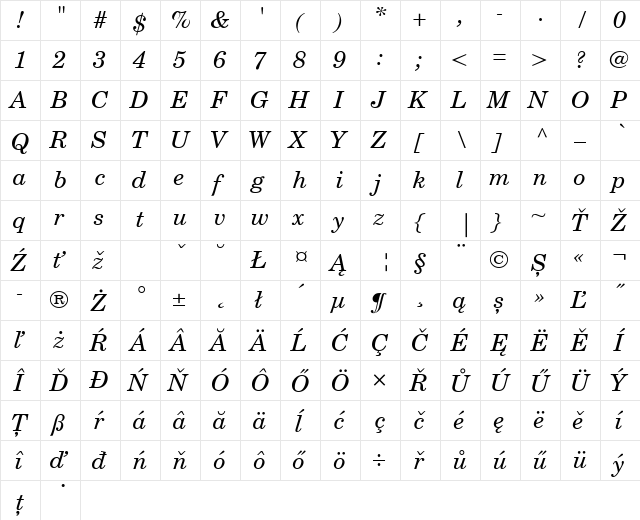
New Century Schlbk CE Italic
Design Context for New Century Schlbk CE Typeface
New Century Schlbk CE is a composed and adaptable typeface that performs quietly and consistently across a wide range of design contexts. Its italic angle brings a sense of urgency and motion to the letterforms.
Pro Tip: Use New Century Schlbk CE for emphasis, pull quotes, and subheadings where its slanted energy can add rhythm to the layout.